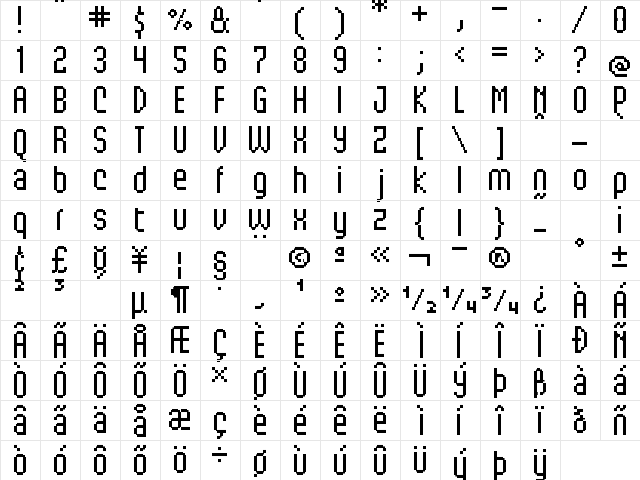
UF Android Regular Regular
Design Context for UF Android Regular Typeface
UF Android Regular is a composed and adaptable typeface that performs quietly and consistently across a wide range of design contexts.